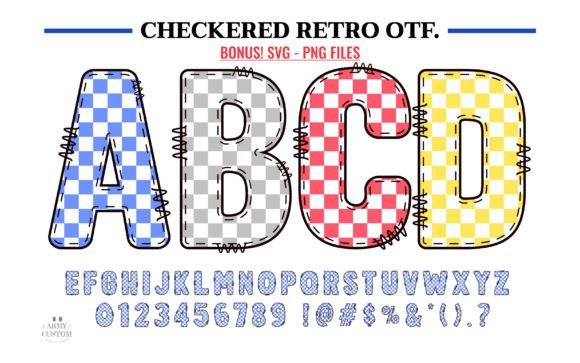
The Perfect Blend of Nostalgia and Creativity: Introducing the Checkered Retro Font
Have you ever stumbled upon an old photograph or a vintage advertisement and felt an instant rush of inspiration? That’s exactly what happened to many designers when they discovered the Checkered Retro Font. This charming font is a masterclass in blending nostalgia and creativity, featuring characters that incorporate a pattern resembling a classic checkerboard.
The Checkered Retro Font is more than just a pretty face; it’s a valuable tool for designers looking to add a touch of retro flair to their projects. Whether you’re working on a branding campaign, designing a website, or creating a custom invitation, this font is sure to bring a unique and eye-catching element to your work. With its versatility and compatibility with popular design programs, the Checkered Retro Font is a must-have for any designer looking to elevate their creative game.
Checkered Retro Font Key Features
- Font Family: A unique, hand-drawn font with a retro aesthetic, featuring a checkered pattern.
- Unique Characteristics: The font’s checkered pattern creates a visually interesting and eye-catching effect, perfect for adding a touch of nostalgia to designs.
Designer Review: Checkered Retro Font
Overall, I think the Checkered Retro Font has some great qualities that make it a fun and unique addition to any project. ✨ One of the things I love about this font is its versatility – it can be used for both bold and playful headlines, as well as more subtle body text.
Another great feature of the Checkered Retro Font is its customization options. ✨ With a wide range of colors and patterns to choose from, designers can easily tailor the font to fit their project’s aesthetic. Additionally, the font’s distressed, retro-inspired look is perfect for creating a vintage or nostalgic vibe.
However, I do have a few reservations about the Checkered Retro Font. ⚠️ One of the main limitations is its readability in certain contexts. While it’s great for headings and titles, the font can be difficult to read in smaller sizes or when used for large blocks of text.
Another potential issue is the font’s tendency to look a bit too “busy” at times. ⚠️ While the checkered pattern can be eye-catching, it can also be overwhelming if not used judiciously.
Here are some specific pros and cons to consider:
- ✨ Versatile and fun design
- ✨ Wide range of customization options
- ⚠️ Limited readability in certain contexts
- ⚠️ Can look too “busy” at times
Checkered Retro Font: A Practical Application Guide
The Checkered Retro Font is ideal for:
- Retro-themed designs (e.g., posters, flyers, etc.)
- Streetwear and fashion branding
- Old-school video game and movie-inspired designs
Remember to experiment with different font sizes, colors, and alignments to get the most out of the Checkered Retro Font.
Q: How do I customize the Checkered Retro Font to fit my design needs?
The Checkered Retro Font is highly customizable, allowing designers to adjust the size, color, and pattern of the checkered design to fit their needs. You can also adjust the level of distortion and wear on the font to create a unique, distressed look. To customize the font, simply open the font file in your chosen software application and use the built-in tools to make your desired adjustments.